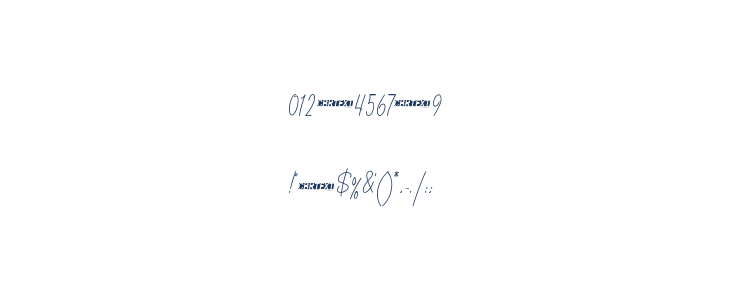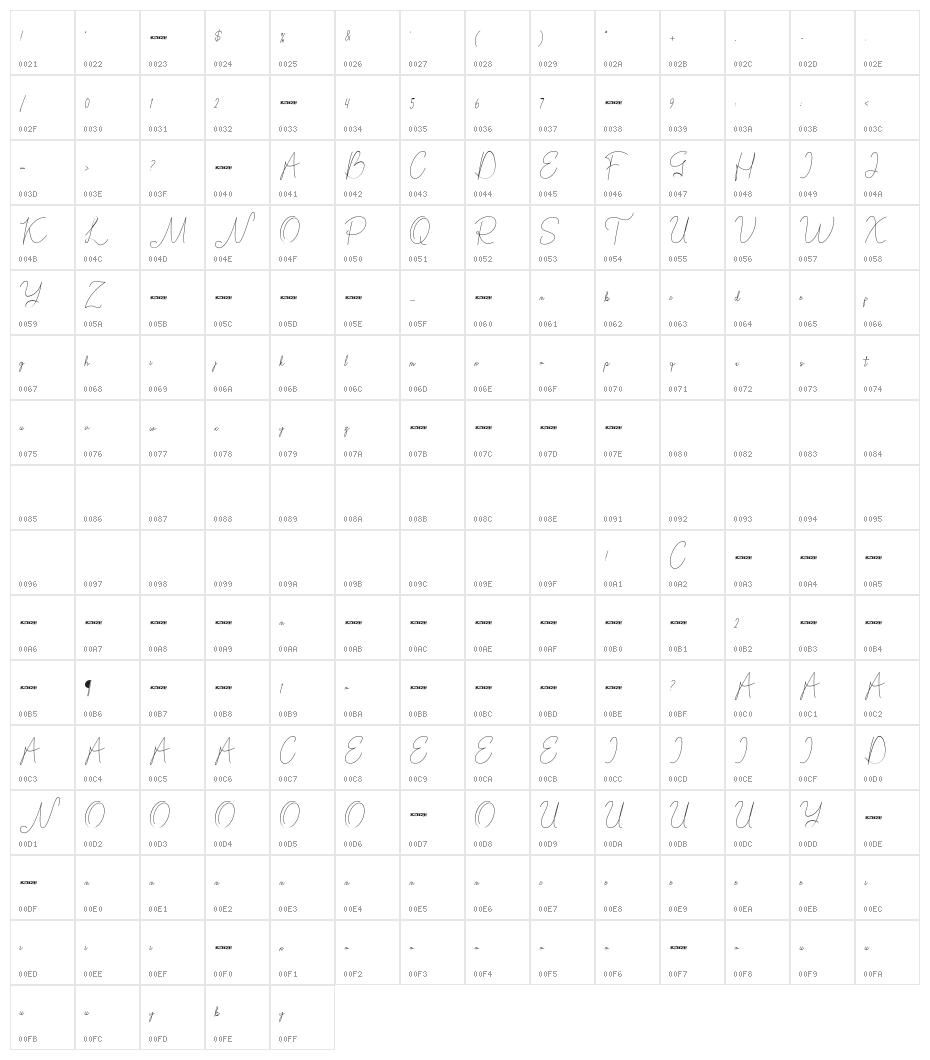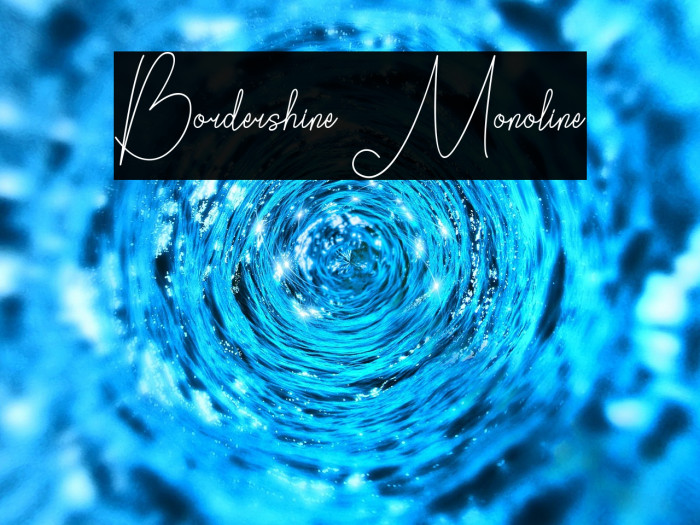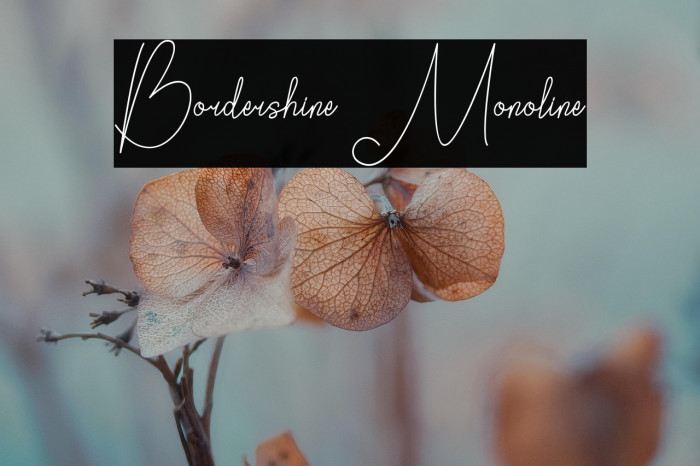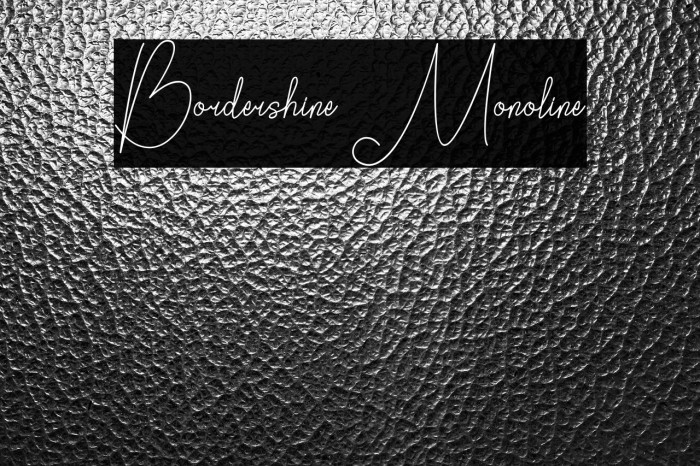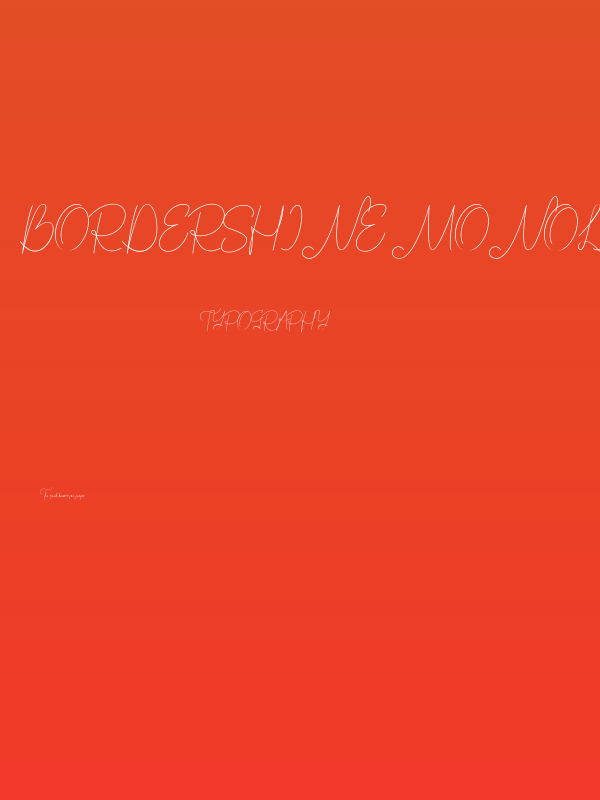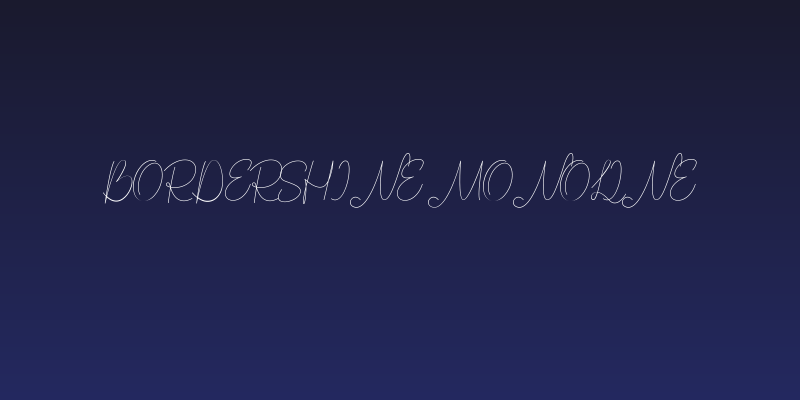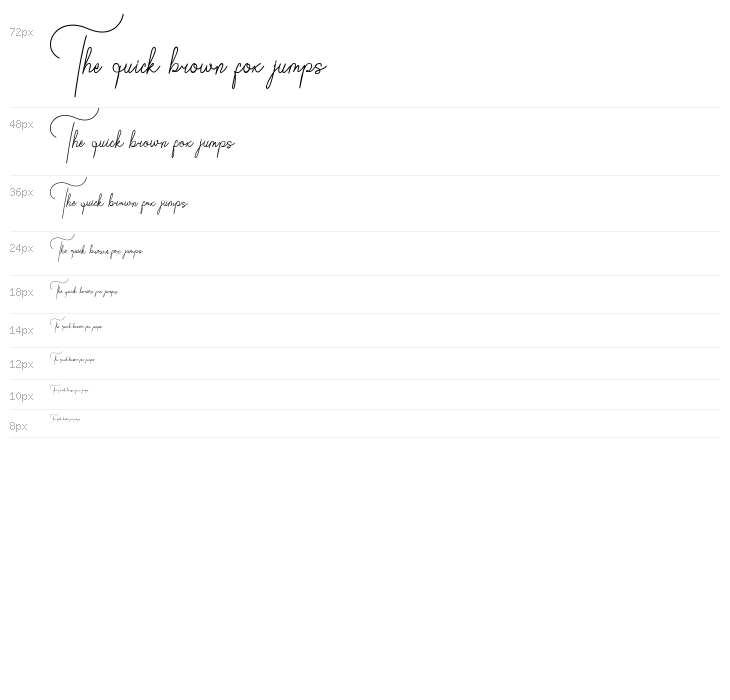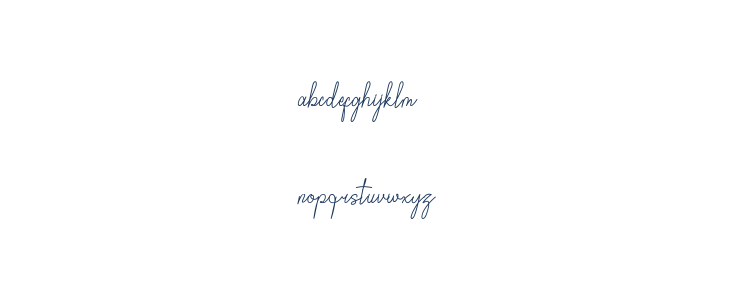
Bordershine Monoline Font
Bordershine Monoline Description
This elegant script font features a monoline design with smooth, flowing curves and a handwritten aesthetic. The uppercase letters are tall and slender, with distinctive loops and swirls that add a touch of sophistication. The lowercase letters maintain a consistent stroke width, enhancing readability while preserving the font's graceful appearance. Numbers and special characters are crafted with the same attention to detail, ensuring a cohesive look across all text elements. This font is ideal for projects that require a personal, artistic touch, such as invitations, greeting cards, and branding materials.
| Overall Style | Elegant, Artistic |
| Proposed Projects | Ideal for wedding invitations, greeting cards, personal branding, and artistic projects. |